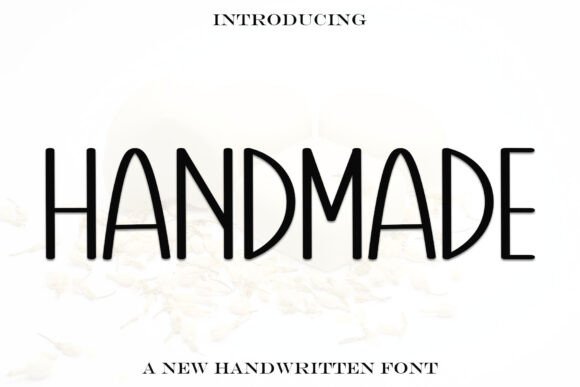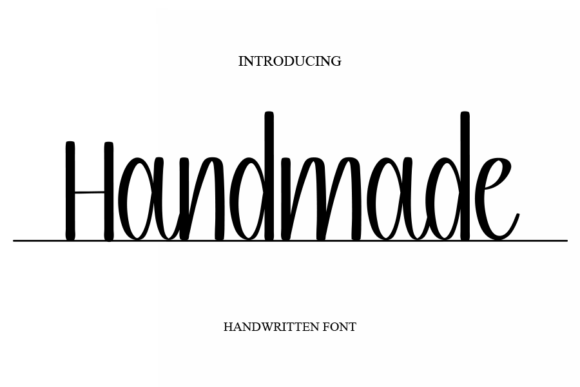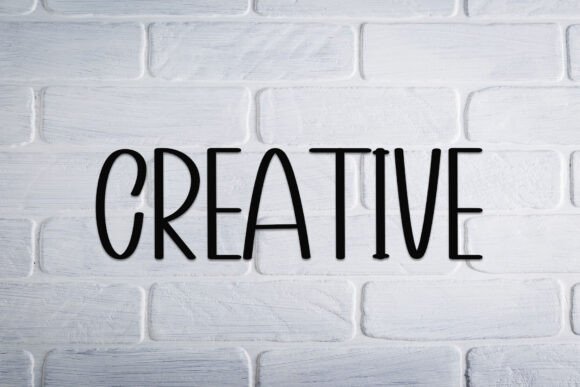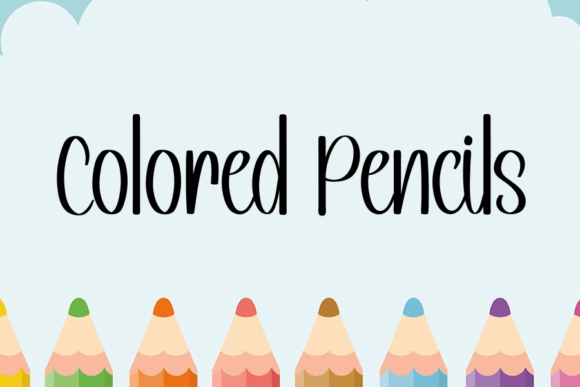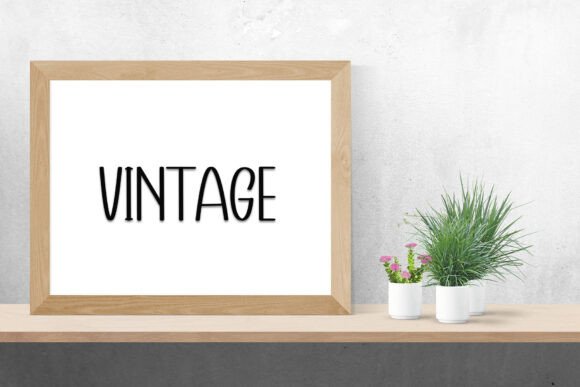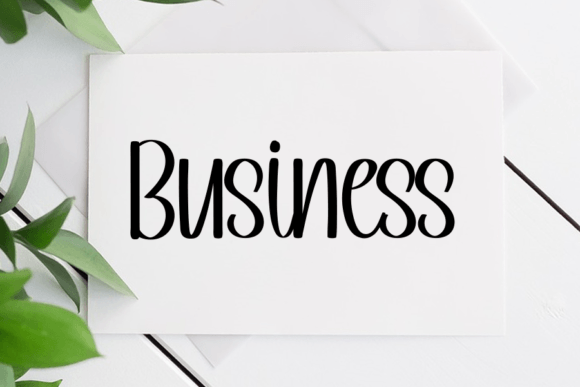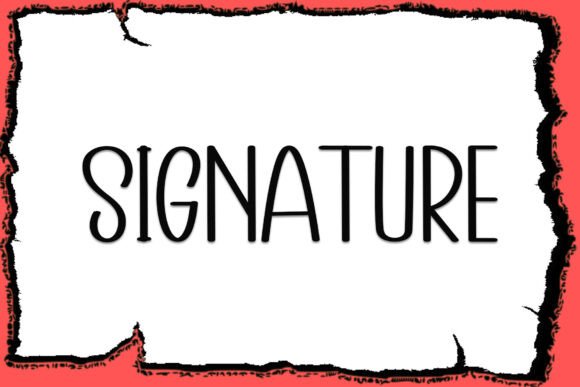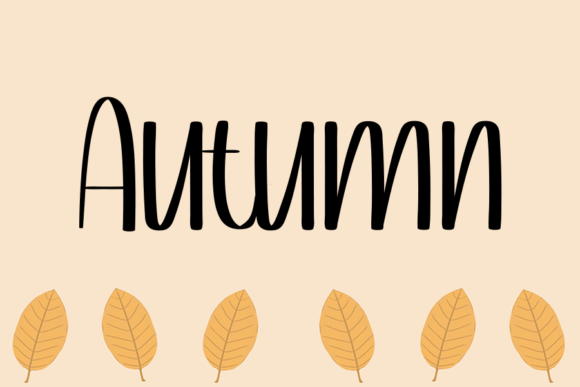
About the Handmade Font
Introducing the Handmade Font, a beautifully crafted typeface designed to elevate your creative projects. Handmade is a fun and friendly handwritten font. Whether you’re using it for crafts, digital design, presentations, or making greeting cards, this font has the potential to become your favorite go-to font, no matter the occasion!
Handmade excels in projects requiring a personal touch, such as wedding invitations, children’s books, or social media graphics. Its informal nature makes it ideal for short headlines, logos for artisan businesses, and packaging for handcrafted products. However, avoid using it for lengthy body text or UI elements where readability is paramount; its inconsistent stroke weights would hinder legibility.
Consider pairing Handmade with a clean sans-serif like Open Sans for a balanced contrast, or a playful script font like Pacifico to enhance its friendly feel. For a more sophisticated look, a classic serif such as Garamond could provide a grounding element.
Handmade’s core personality is undeniably friendly and approachable, conveying warmth and a handmade aesthetic. Its slightly irregular forms suggest authenticity and charm, making it a versatile choice for brands emphasizing human connection and craft.